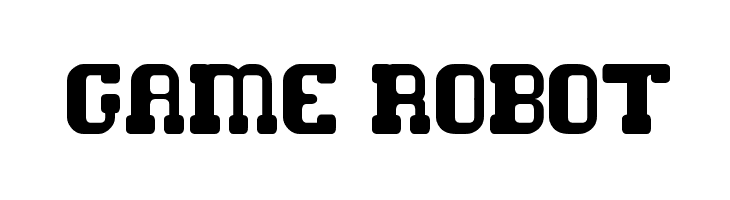
A distressed, fragmented font with a rugged, chaotic appearance.
A bold serif font with a modern yet classic appeal, featuring thick strokes and slightly condensed forms.
A bold, oblique font with a dynamic and modern style.
A refined, high-contrast serif font with elegant, slender characters.
An elegant, light, and slightly oblique font with medium contrast.
An elegant oblique font with moderate contrast and a cohesive, sophisticated style.
A modern serif font with elegant, slightly condensed letterforms.
An ornate, Victorian-style font with decorative elements and elegant flourishes.
A bold, textured brush script font with a rugged, dynamic style.
A bold, brush-style font with an expressive, hand-painted look.
A bold, geometric, and artistic font with intricate patterns and a modern art vibe.
A sophisticated script font with elegant, flowing curves and high contrast.
A playful, handwritten font with bold strokes and artistic flair.
A bold, handwritten font with a playful and informal style.
An ornate Gothic font with intricate detailing and medieval flair.
A playful, bold handwritten font with a lively and informal style.
A modern, elegant script font with fluid, graceful letterforms.
A bold, playful font with a bubble-like, decorative style.
A bold, rugged font with a hand-crafted appearance and strong visual impact.
An elegant and decorative font with cursive-like uppercase and stylish lowercase letters.
A bold, distressed font with a grunge aesthetic and textured, worn appearance.
A bold, geometric font with tall, narrow characters and sharp angles.
A cartoonish, illustrative display font made from character drawings.
A lively and elegant script font with dynamic curves and fluidity.
A playful, handwritten font with tall, narrow letters and smooth strokes.
A bold, gothic-inspired font with intricate detailing and a medieval flair.
A playful, dot-connected font with a whimsical and modern design.
A bold, slanted font with sharp, angular edges and consistent thickness.
A modern-vintage font with thin strokes and decorative serifs.
A thin, slanted font with a modern and dynamic style.
Minimalist line-art glyphs illustrating hand gestures and motions.
A playful font with hand gestures integrated into each character.